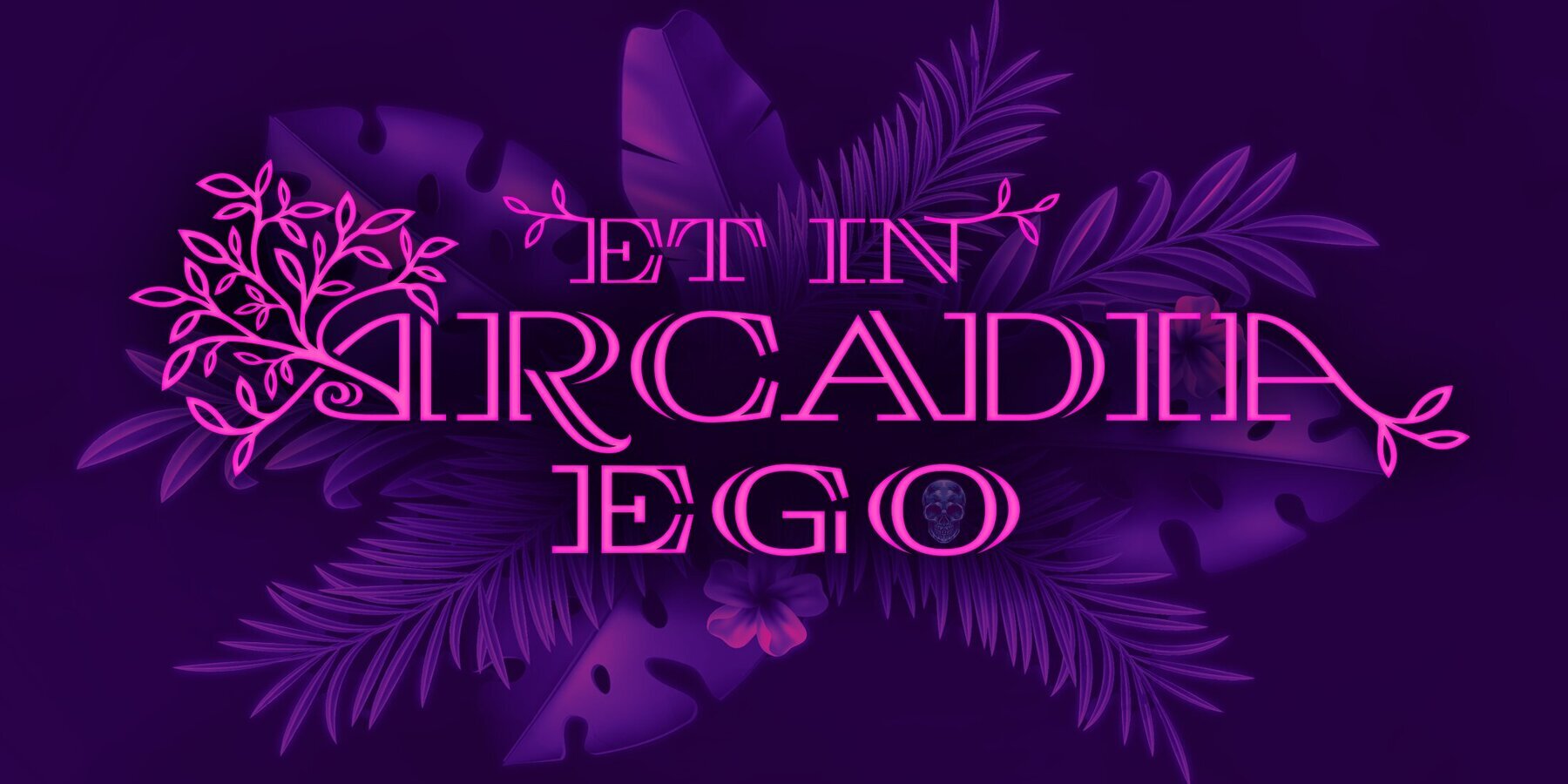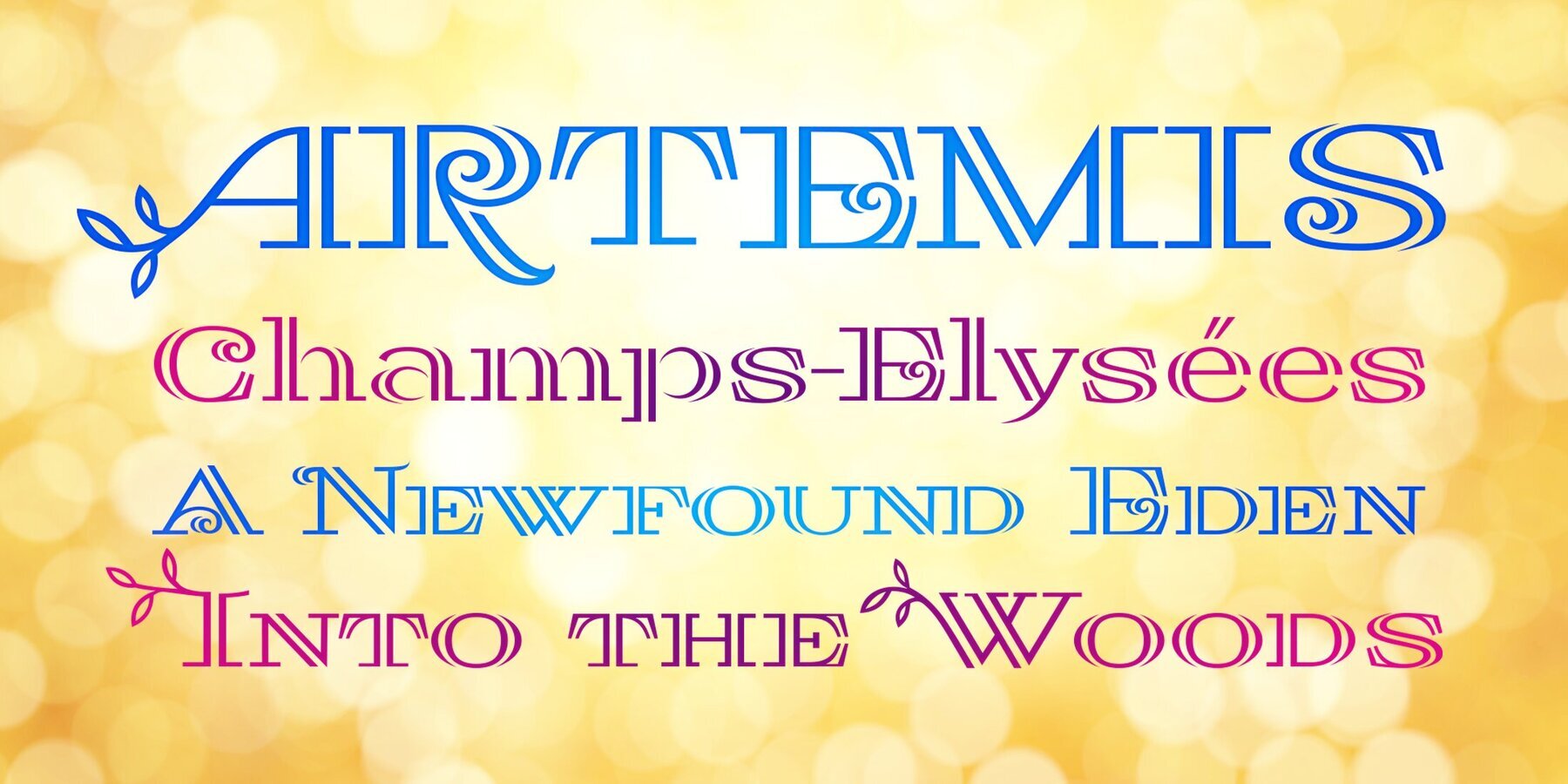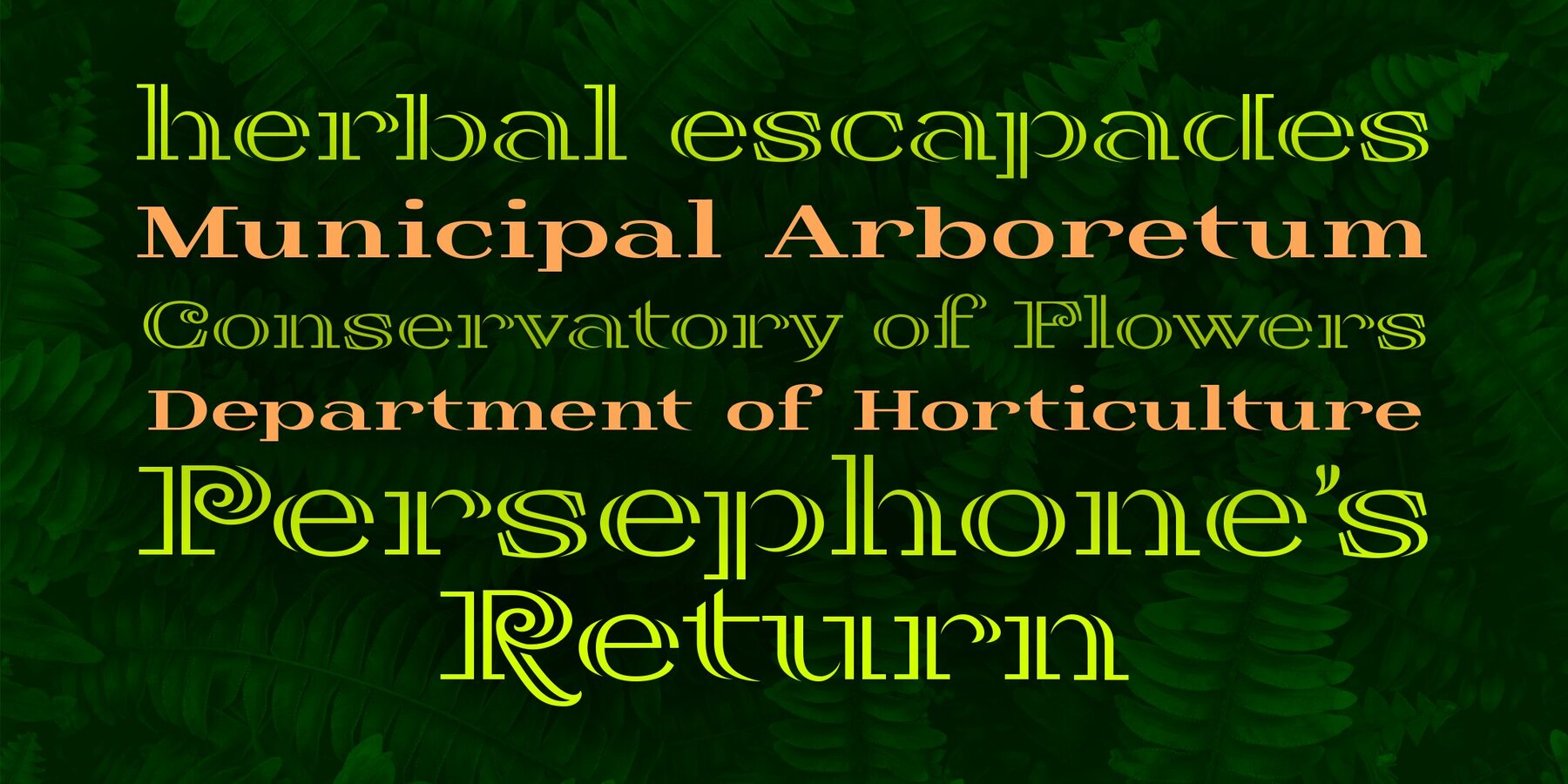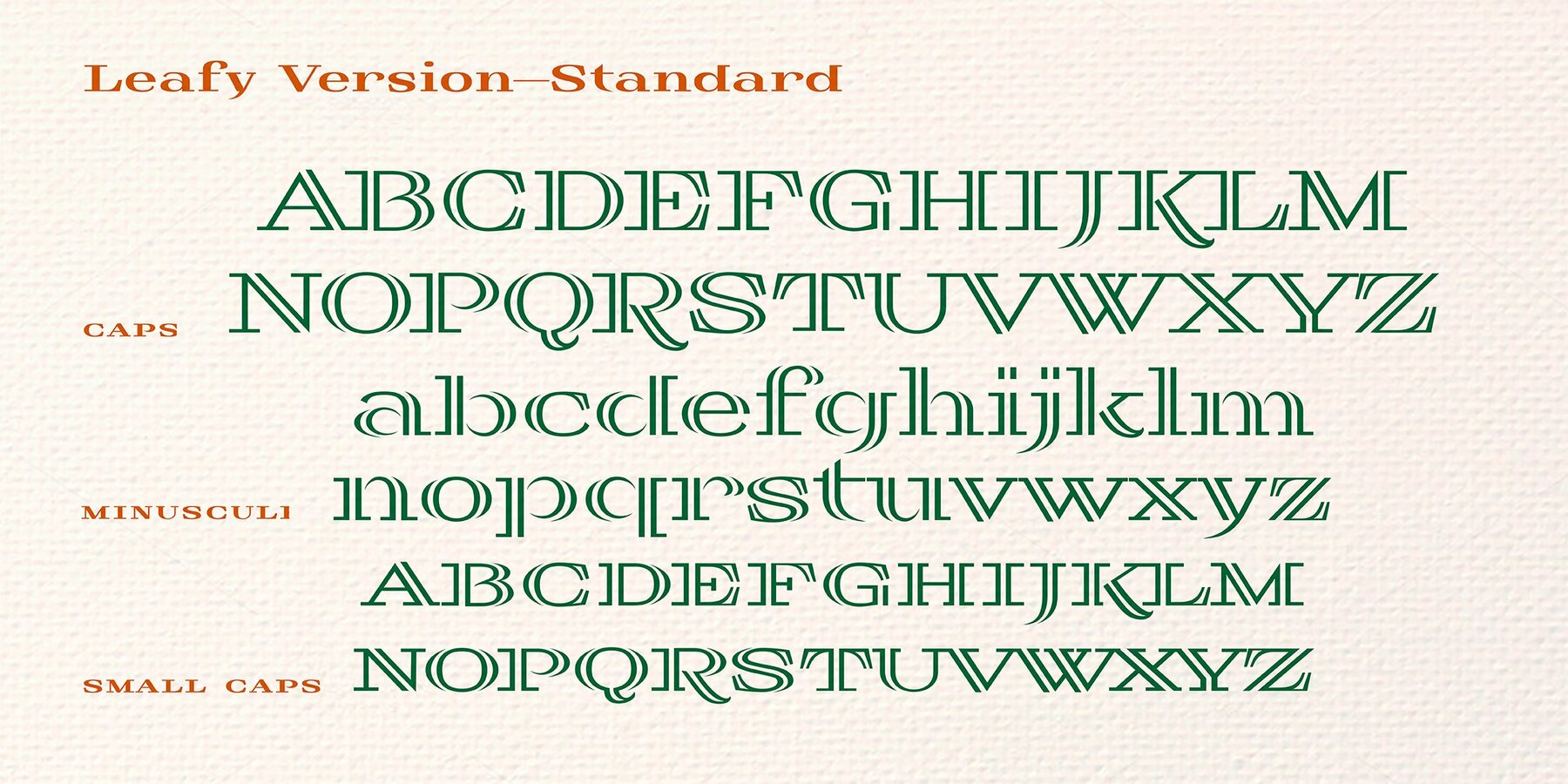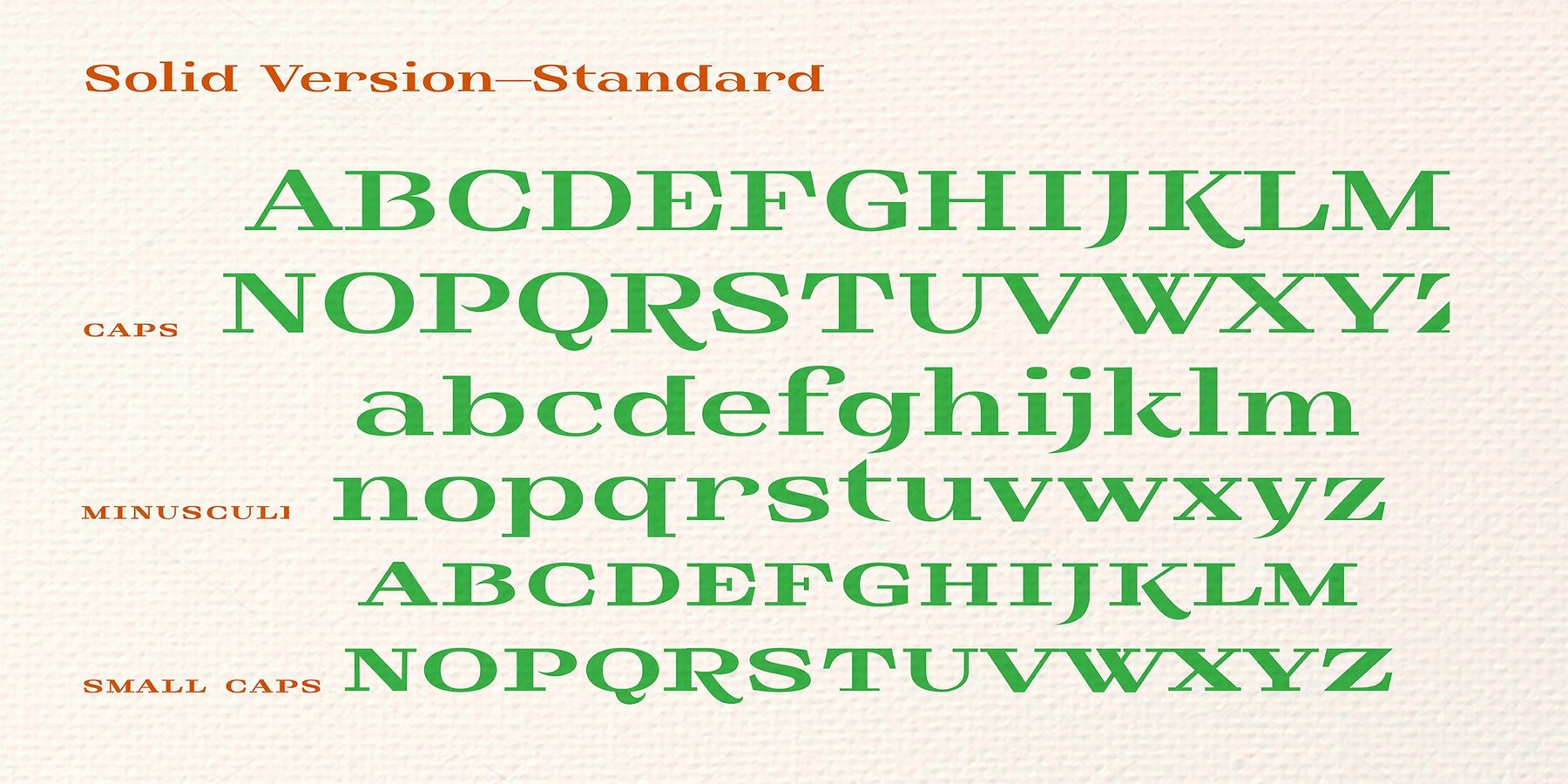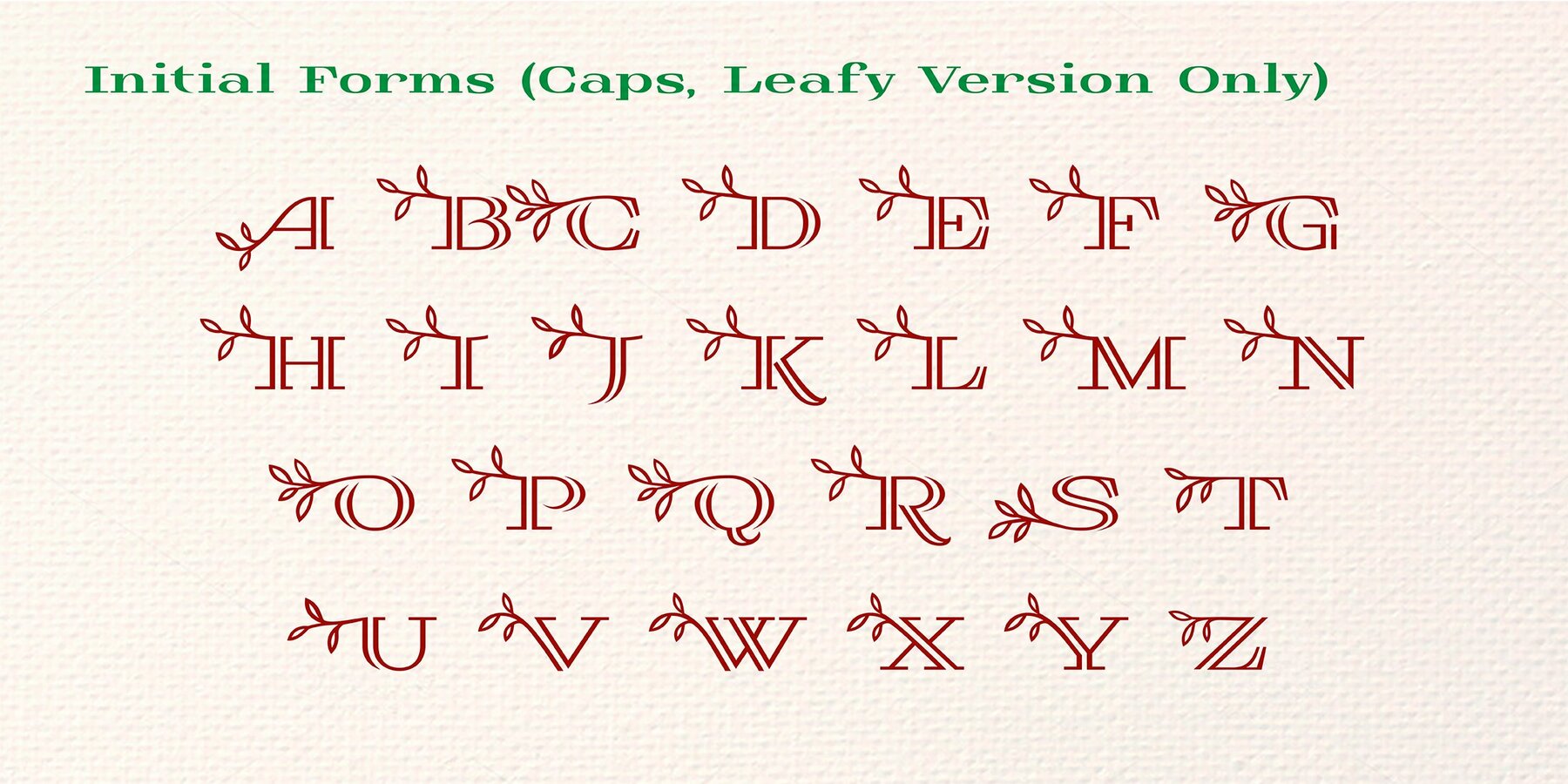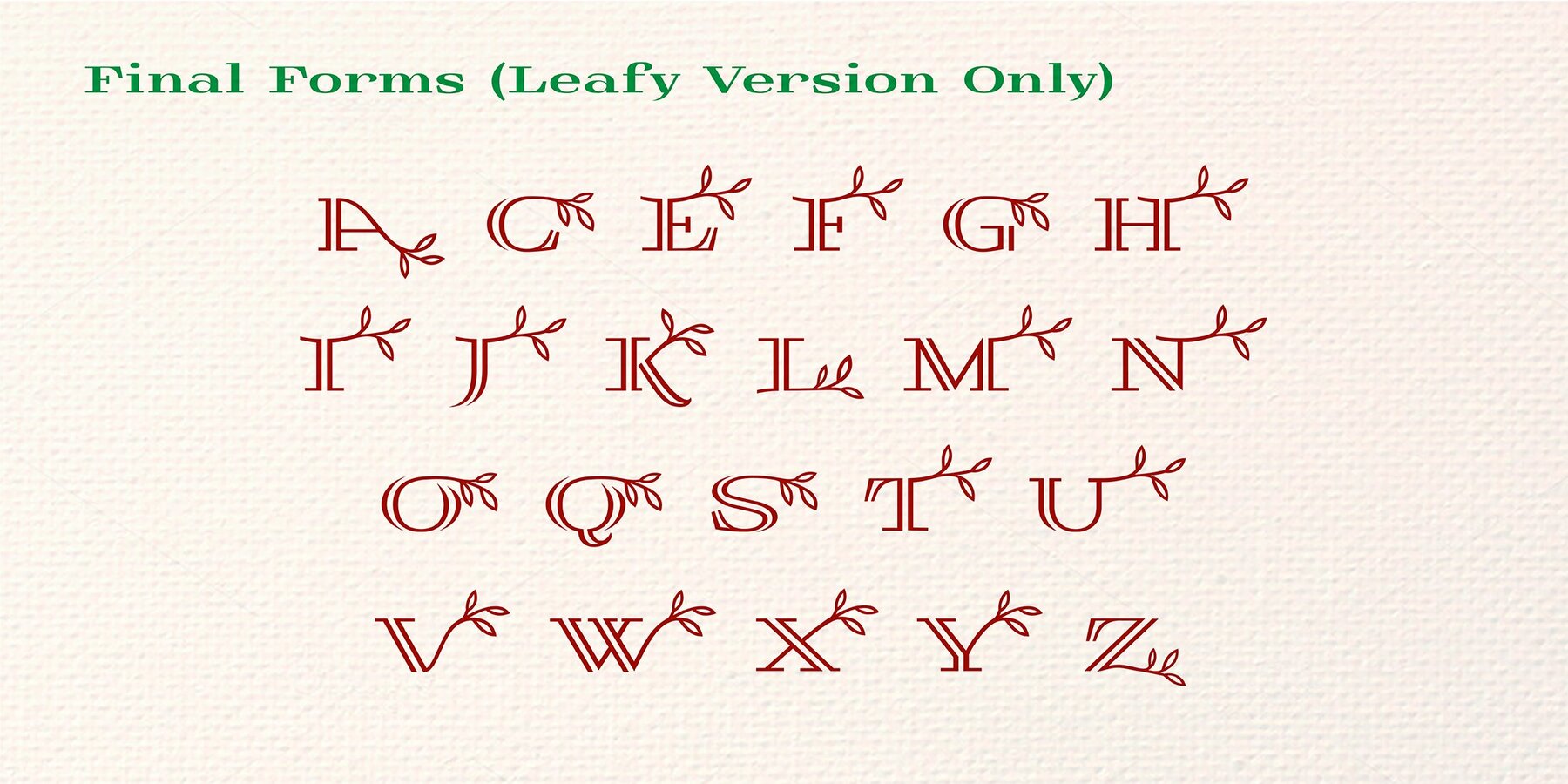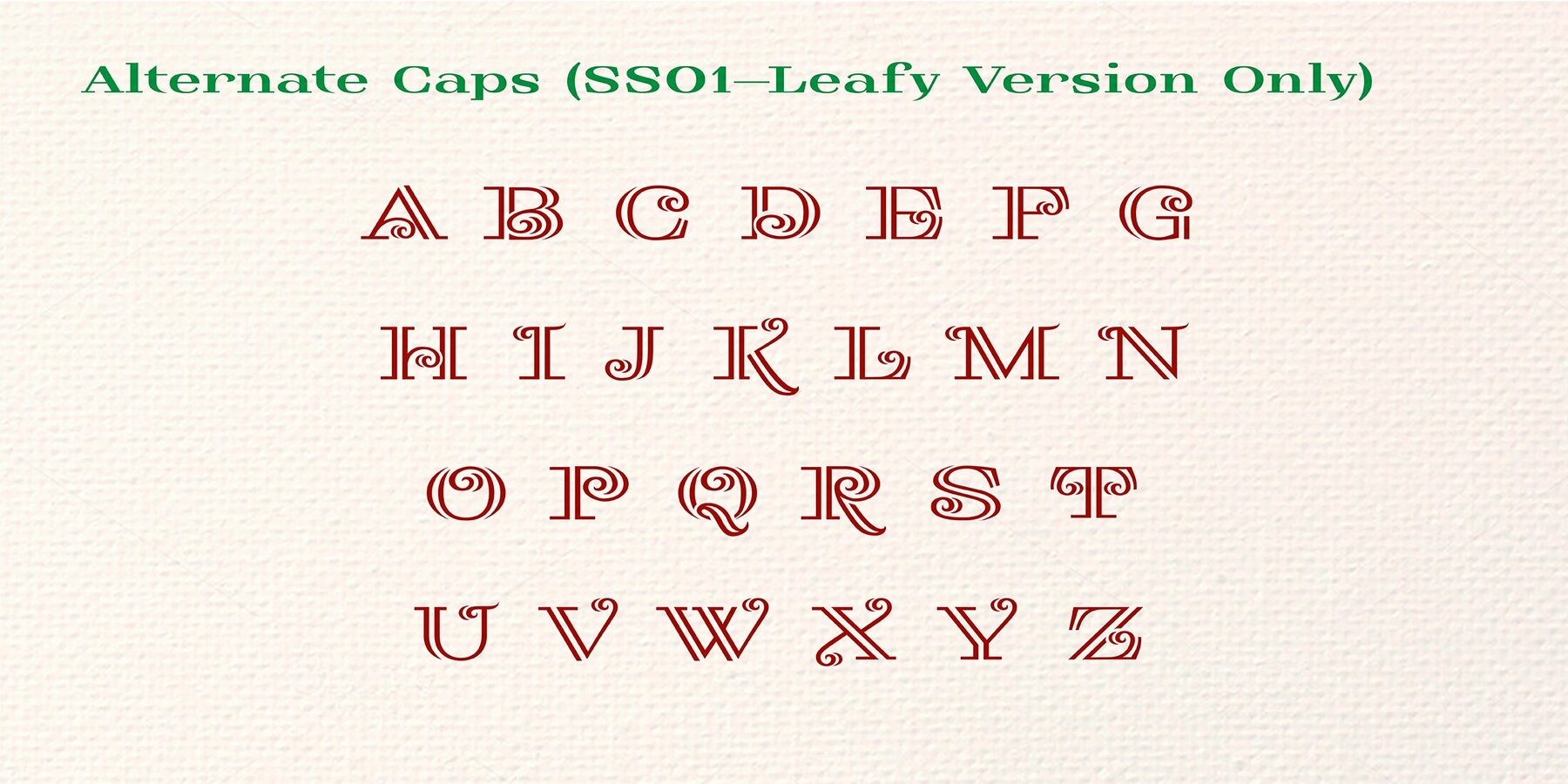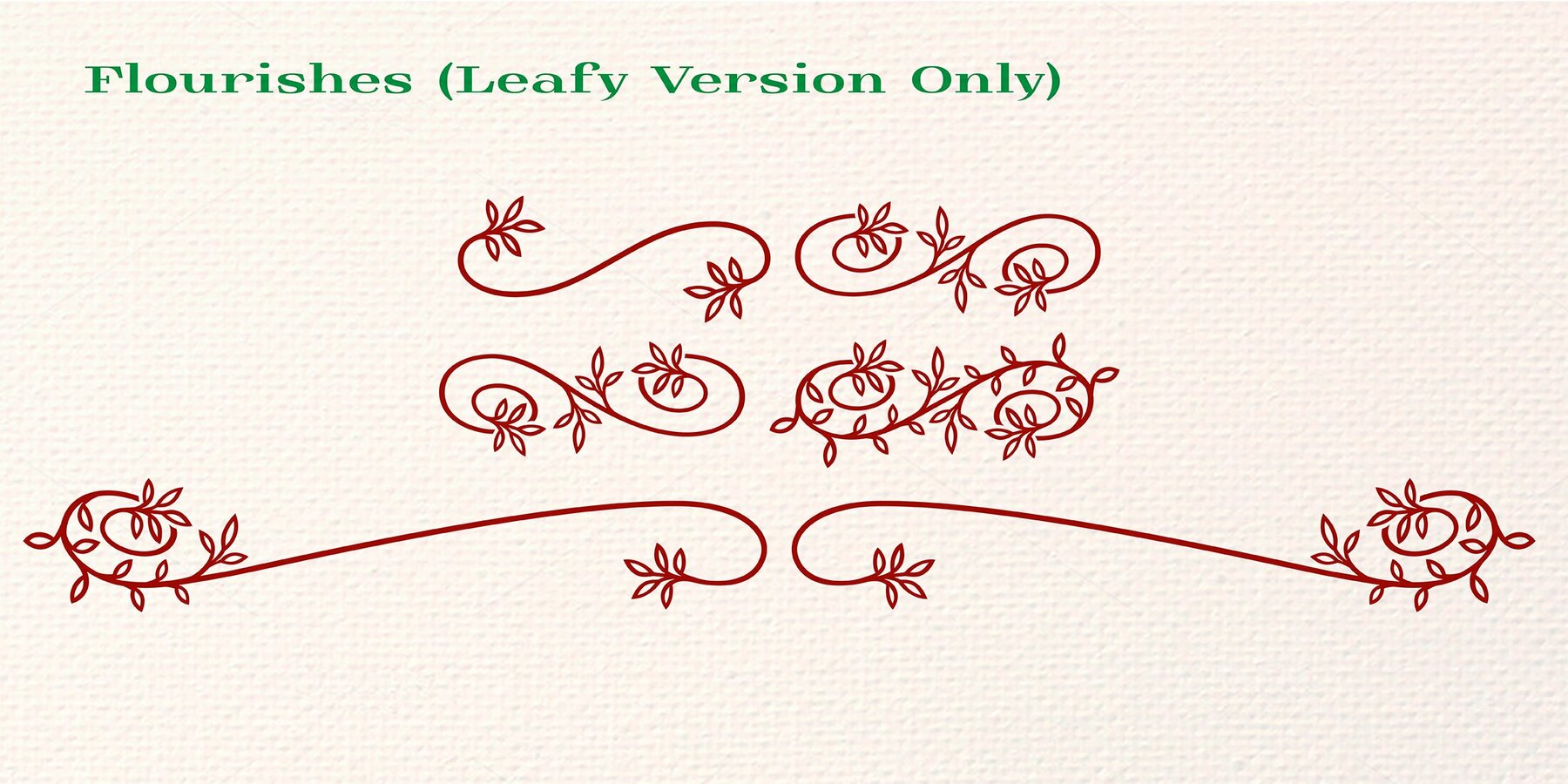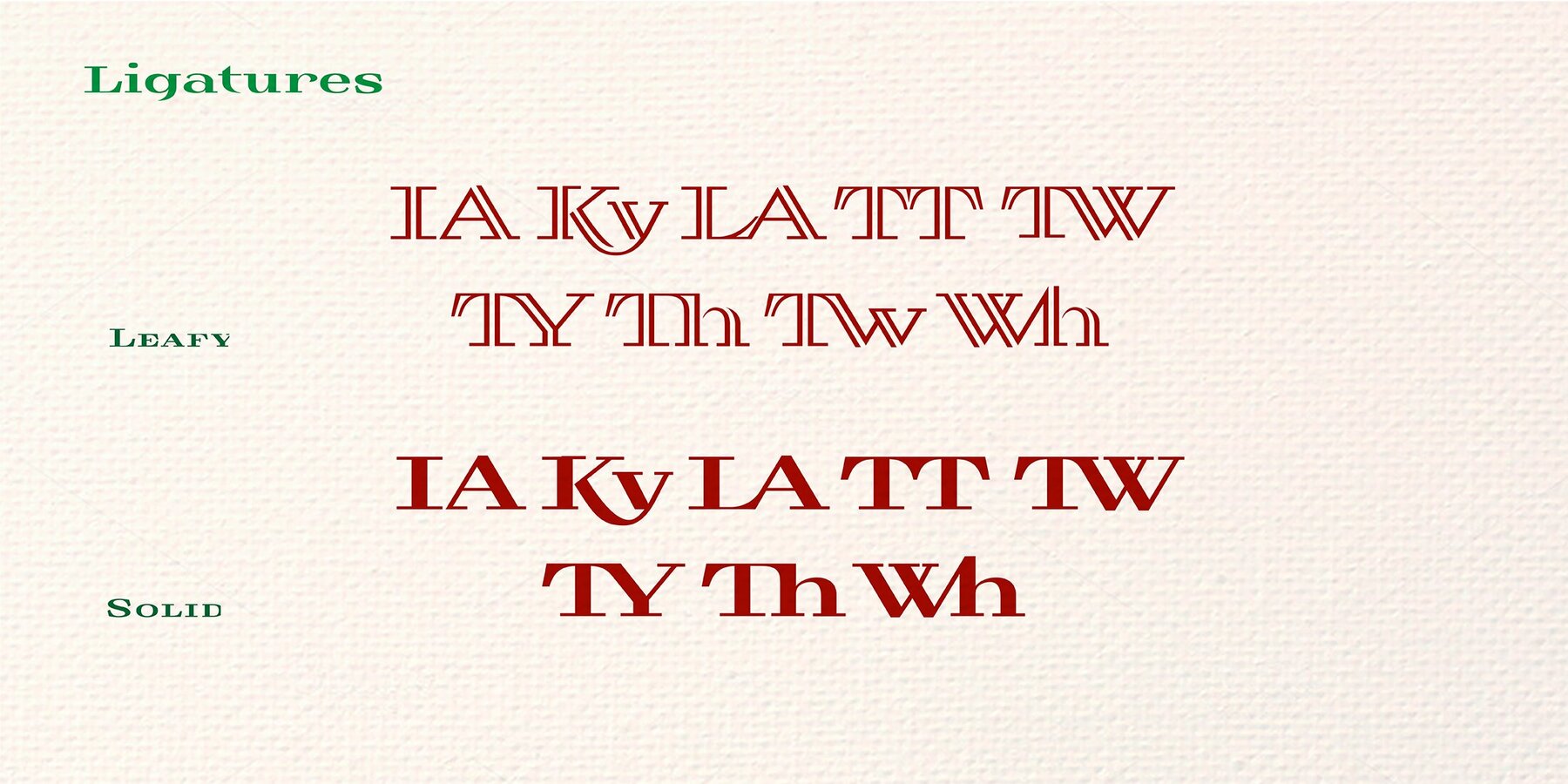
Grande Jatte Font
Grande Jatte is a display face with a distinctly horticultural bent. Based on classic Engravers types, its wide proportions and leafy appurtenances make it a great choice for anything that requires an ornate, elegant take on the natural world, from floral shops to herbalists to garden party invitations!
Grande Jatte's standard form is an elaborate, open, Leafy design with lots of decorative features for large display use, plus a more functional, Solid design for more legible, ancillary text!
Grande Jatte's features include elaborate initial capitals (under the Swash Caps feature), initial and final letterforms in the capitals, a second, more elaborate set of capitals (SS01 feature), and true small caps.
Part of The Ampersand Forest's Sondheim Series, inspired by Sunday in the Park with George.